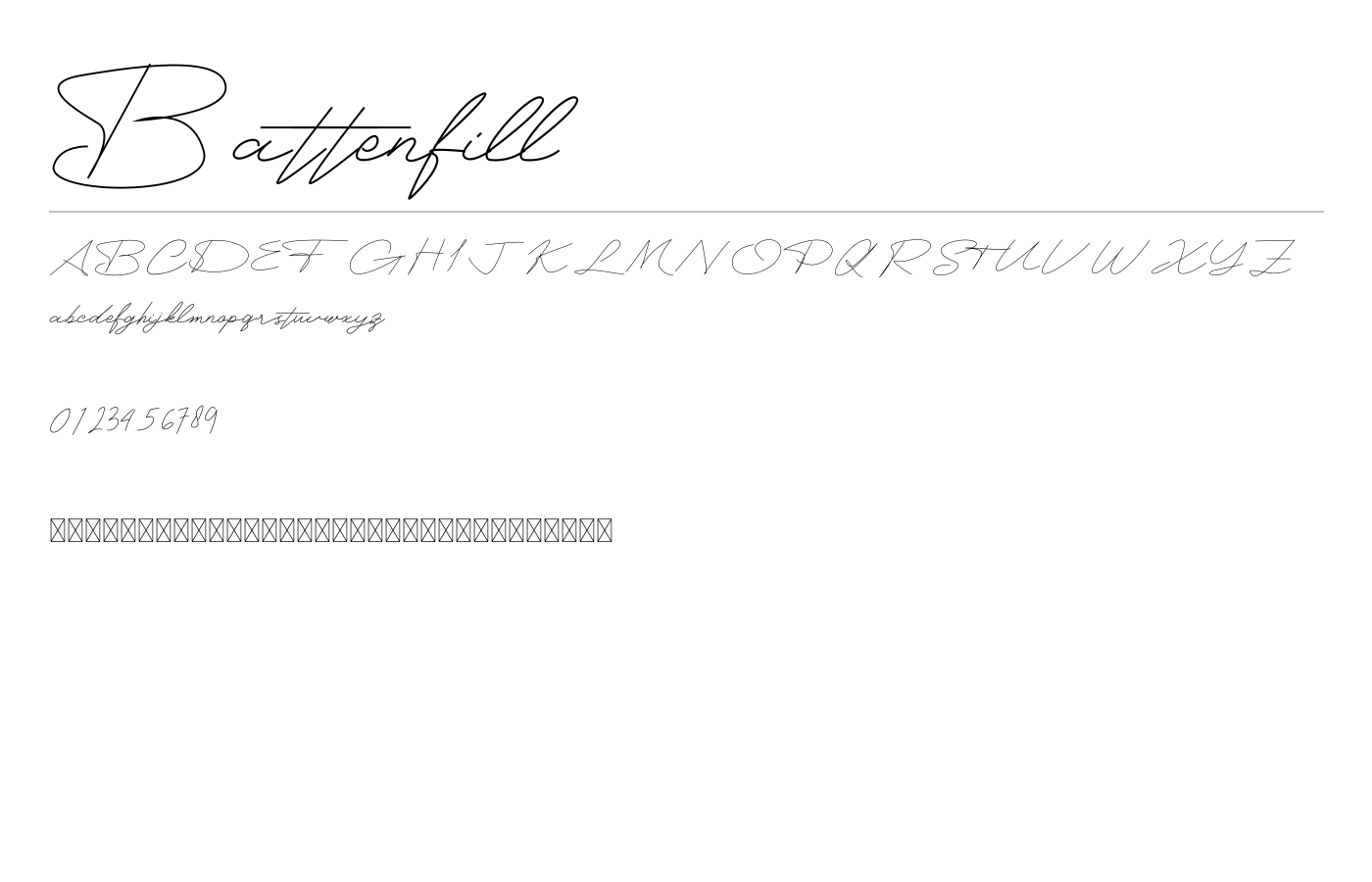
Battenfill is an elegant, light script font with a delicate, handwritten style that features thin, flowing strokes and a refined, airy feel. Its smooth, cursive letterforms exude sophistication and charm, making it perfect for luxury branding, invitations, and fashion-related designs that require a touch of grace and subtlety. This font works best in headlines or accent text where its fine details can shine without losing readability.
Battenfill Font
About Battenfill Font
| Font family | Battenfill Font |
| Designer | Moh. Taufiq |